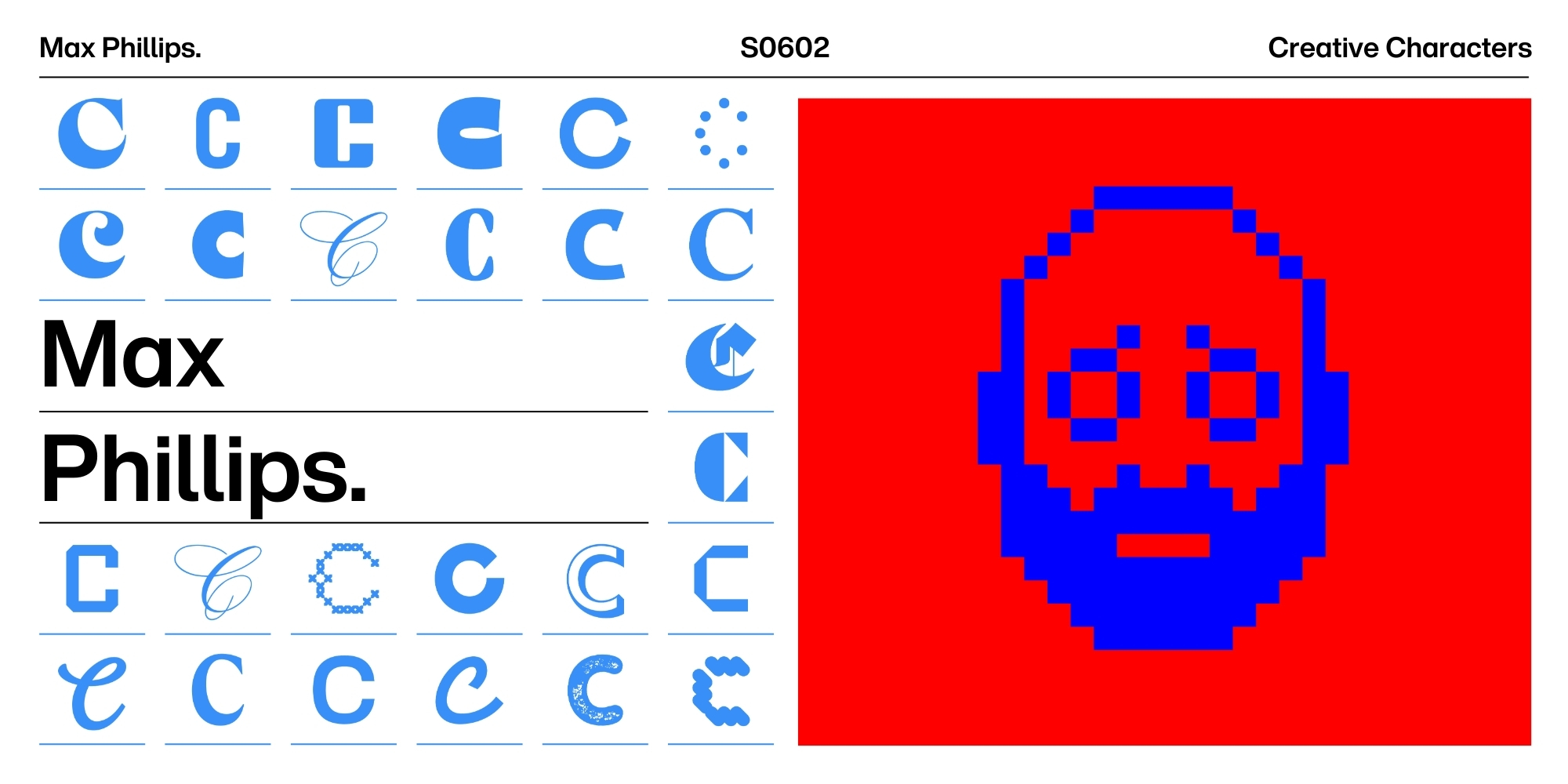
Creative Characters S6 E2: Signal Type: Crafting letters with passion and precision.
What typeface can I design that isn’t weird and eccentric, but that if I didn’t design it, nobody else could? Or that I could design better than anything else?
Max Phillips.
New York-born Max Phillips has been drawing letters for money since he was a teenager. But his path to full-time type design was a bit circuitous — and even involves a stint as a novelist.
Join us as Max, founder of Dublin-based Signal Type, waxes poetically about designing typefaces. He shares the creative process behind his diverse library; how Hermann Zapf has influenced him; and the delicate balance between crafting bold faces to amuse yourself and making versatile fonts for the design world.